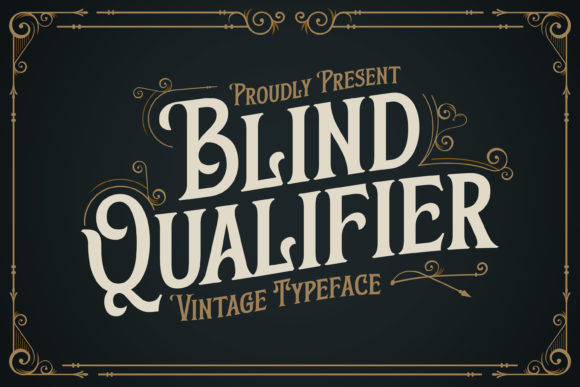
Introducing Blind Qualifier Font, the epitome of elegance and sophistication in the world of display typefaces. Crafted with meticulous attention to detail by the renowned almarkhatype, Blind Qualifier draws inspiration from the captivating curves and intricate flourishes of the decorative arts and architecture movement.
Blind Qualifier's versatility shines through its ability to elevate any design project to new heights. Whether you're crafting eye-catching headlines, designing captivating posters, or creating unforgettable logos, this font empowers you to leave an indelible mark. Its graceful lines and refined curves lend an air of timeless beauty to every creation.
Imagine transforming your business plans into masterpieces with Blind Qualifier. Its crisp and legible structure invites readers to delve into your ideas, while its subtle decorative elements add a touch of visual intrigue. Let Blind Qualifier be the guiding light that illuminates your path to success.
But Blind Qualifier's allure extends far beyond business. Its versatility knows no bounds, making it a perfect choice for designing social media posts that capture attention, creating posters that inspire, or crafting certificates that convey a sense of achievement. Its beauty is undeniable, its charm undeniable, and its ability to captivate is unmatched.
Embrace Blind Qualifier Font today and unleash your creativity. Allow its timeless elegance to elevate your designs, enchant your audience, and leave a lasting impression. Blind Qualifier is not just a font; it's an investment in the power of visual communication.